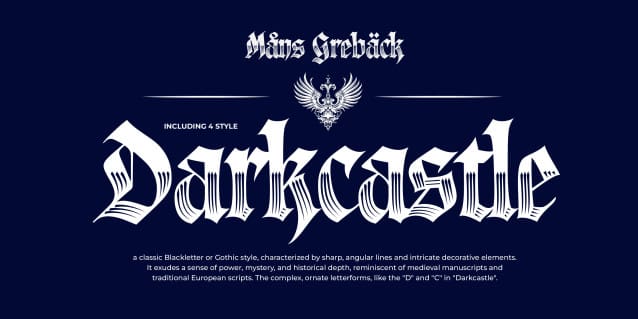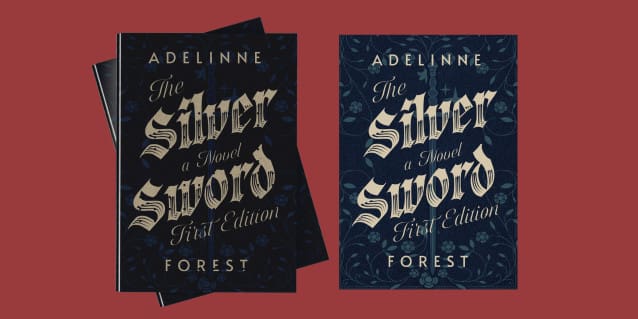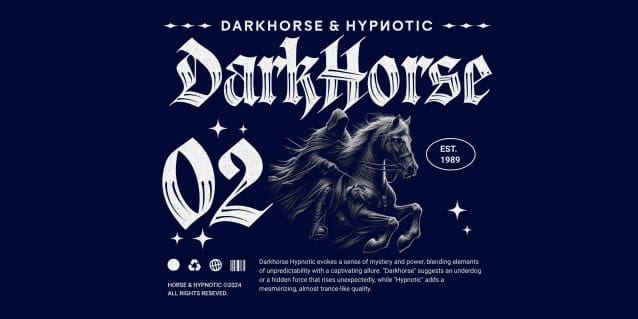
Darkcastle Blackletter Font
Darkcastle Blackletter Font is a strong blackletter font that evokes the medieval era. Its dramatic letterforms are adorned with sharp decorative lines, giving it a powerful illumination for dark Halloween nights or a historical logotype.